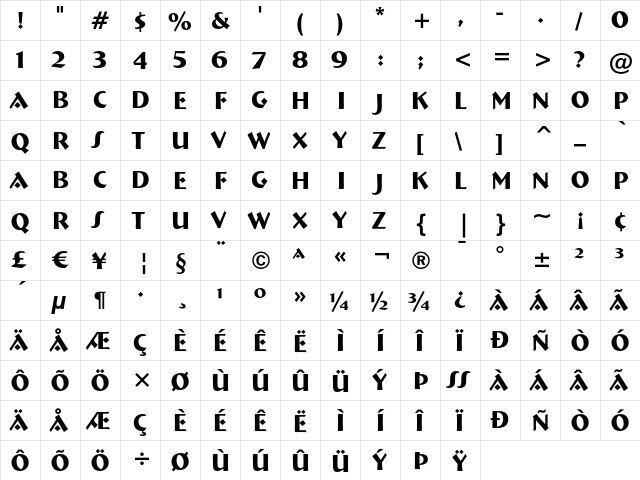
Bremen Bold
Design Context for Bremen Typeface
Bremen is a composed and adaptable typeface that performs quietly and consistently across a wide range of design contexts. The heavy weight commands attention and anchors typographic hierarchies.